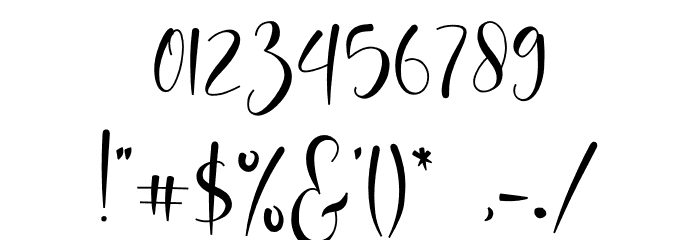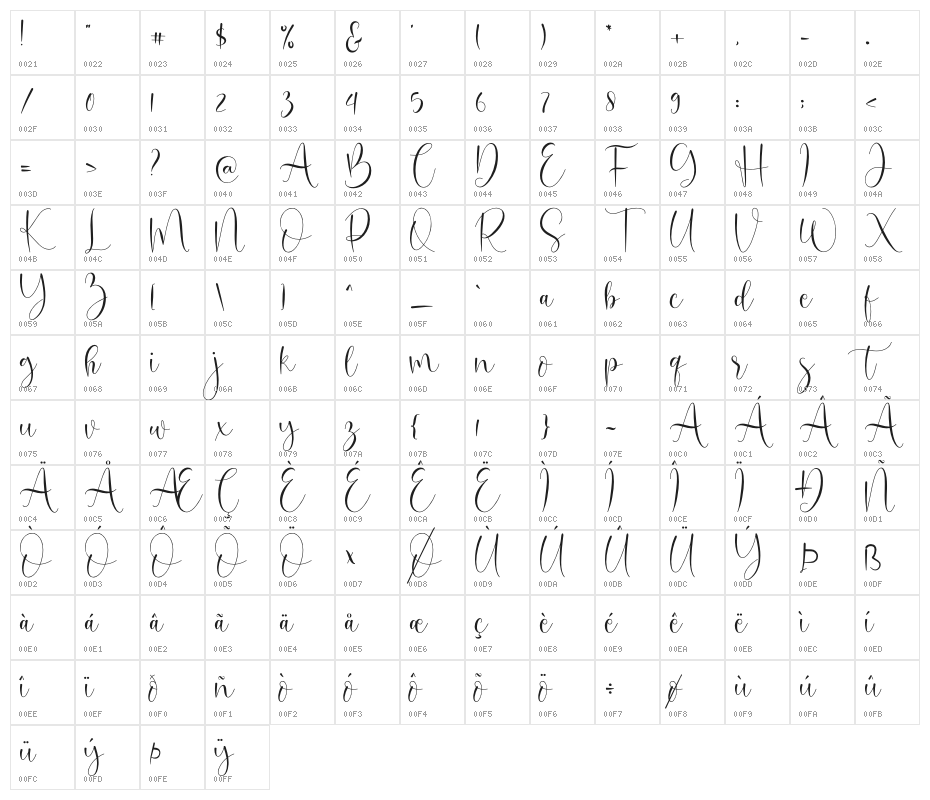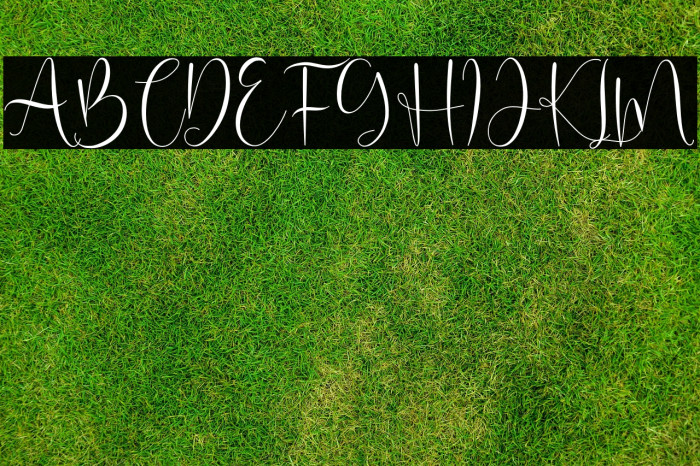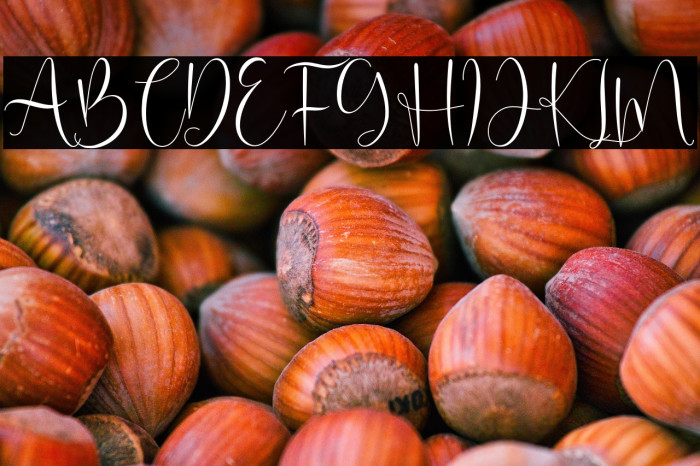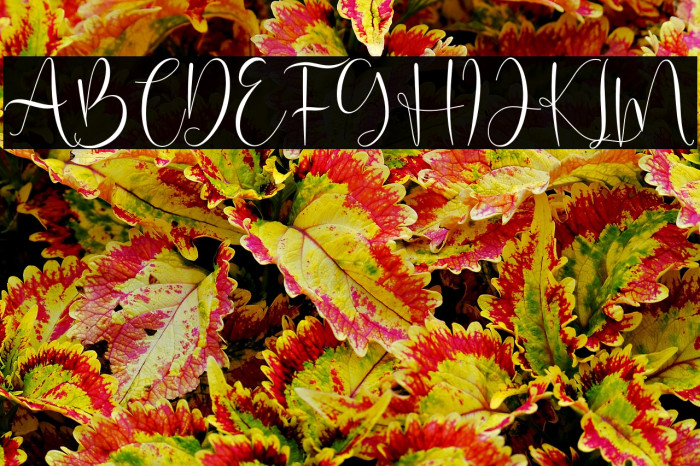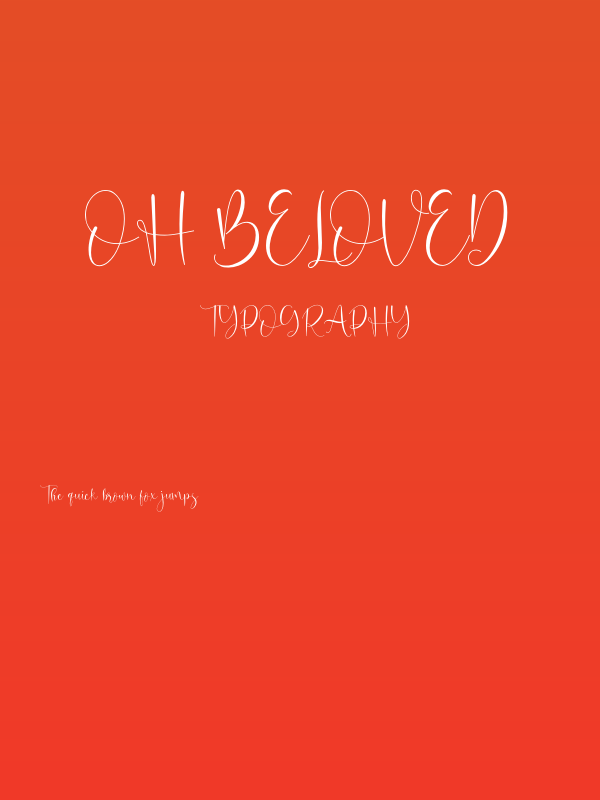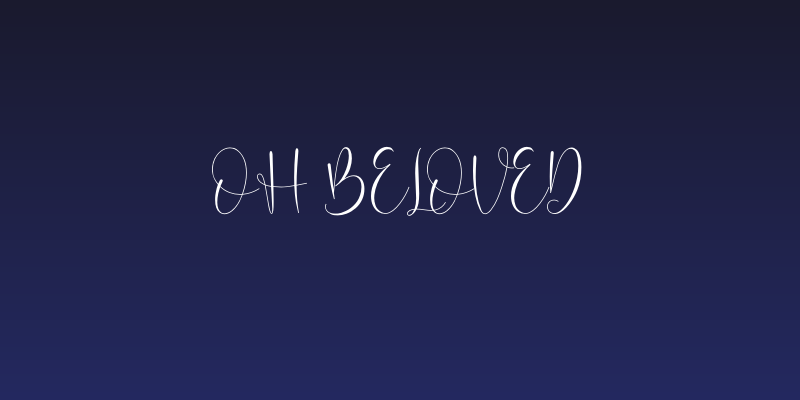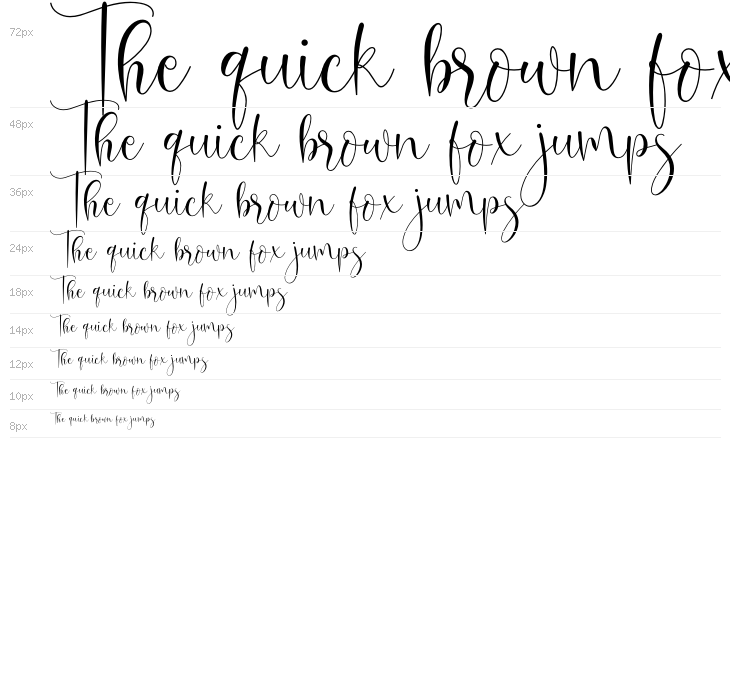
oh beloved Font
oh beloved Description
This font exudes a whimsical and elegant charm, characterized by its flowing, cursive script style. The uppercase letters are tall and slender, with graceful loops and swirls that add a touch of sophistication. The lowercase letters maintain a consistent fluidity, with varying stroke widths that create a dynamic and lively appearance. Numbers and special characters are designed with the same playful elegance, making them suitable for creative and artistic projects. The overall design is both modern and timeless, perfect for adding a personal touch to any text.
| Overall Style | Elegant, Whimsical |
| Proposed Projects | Ideal for wedding invitations, greeting cards, logos, and branding materials that require a personal and artistic touch. |